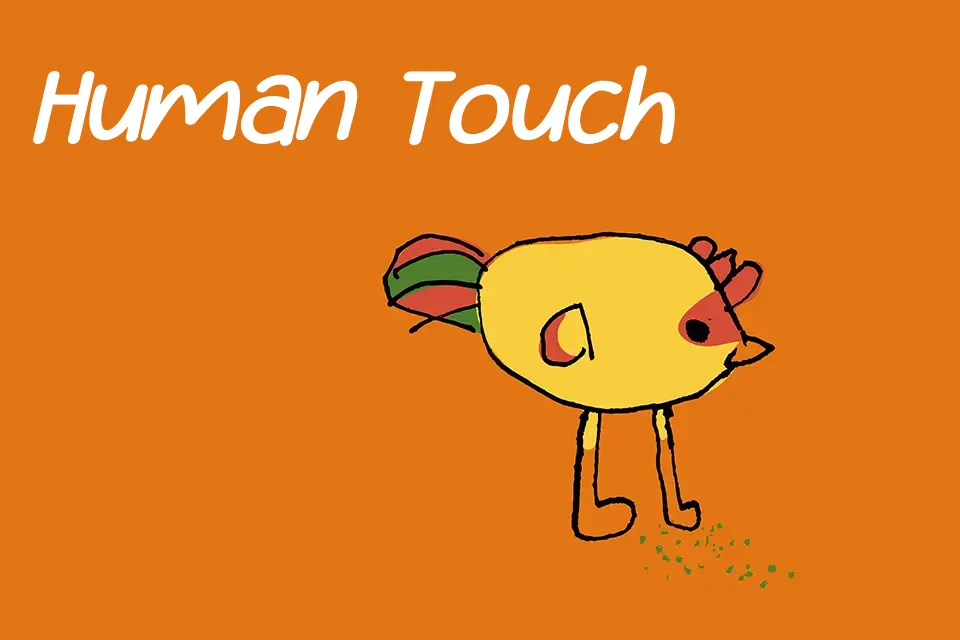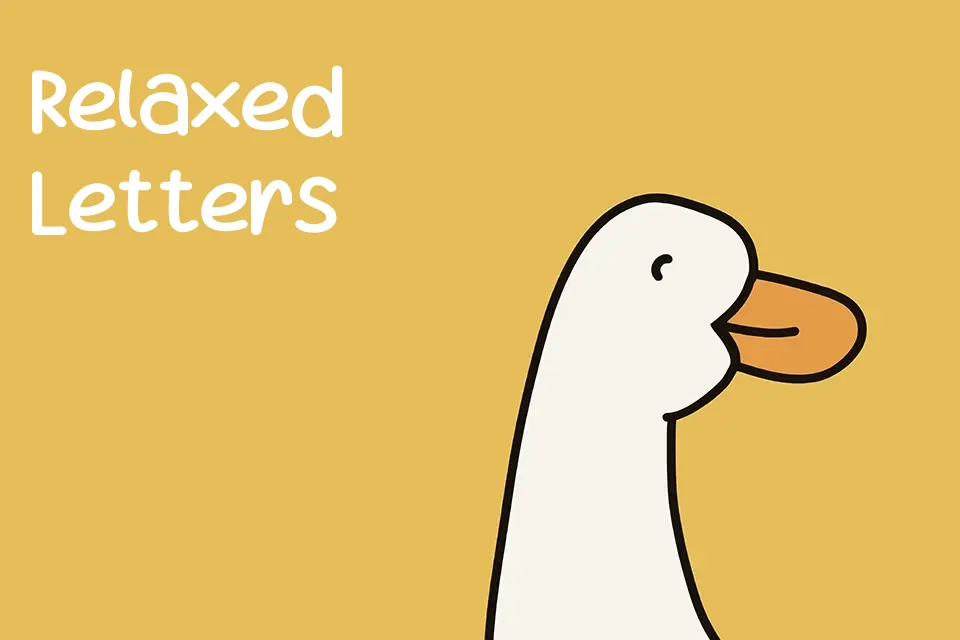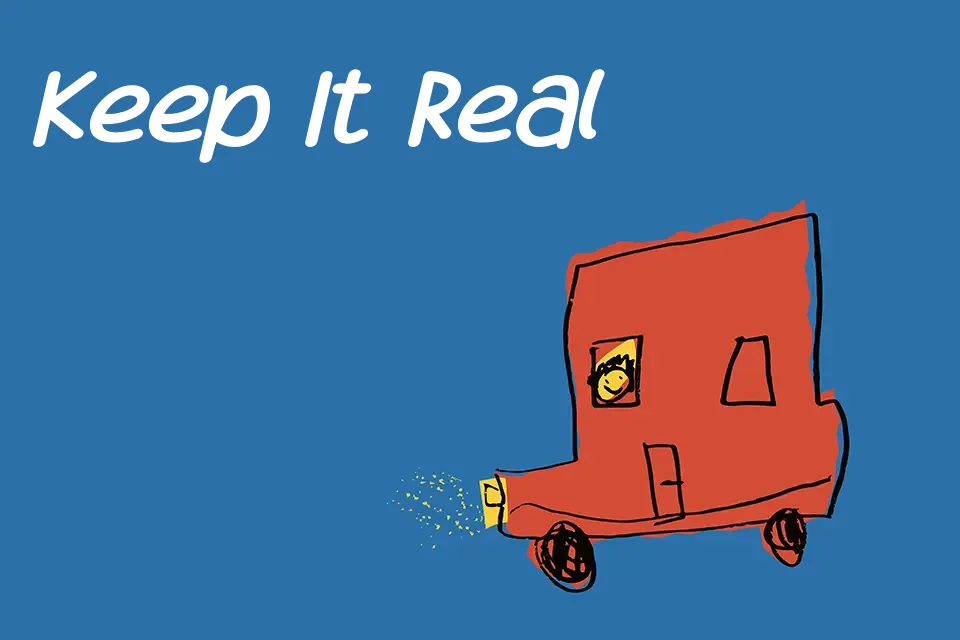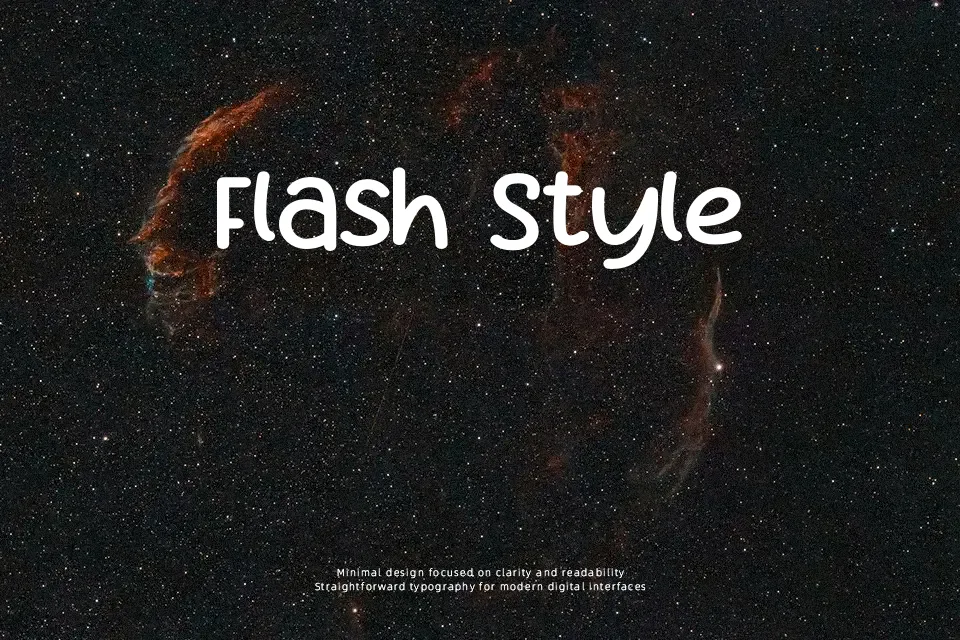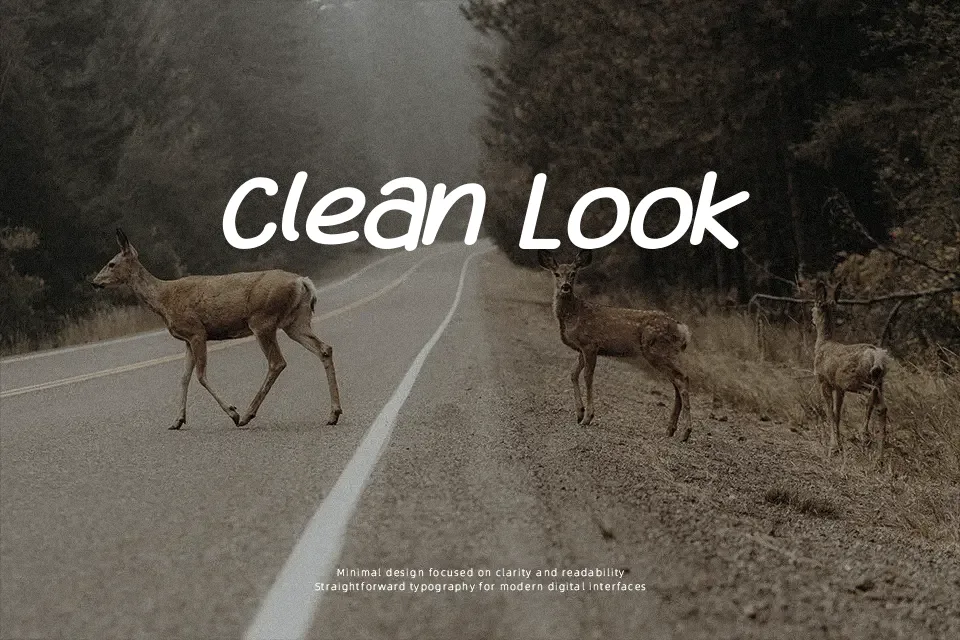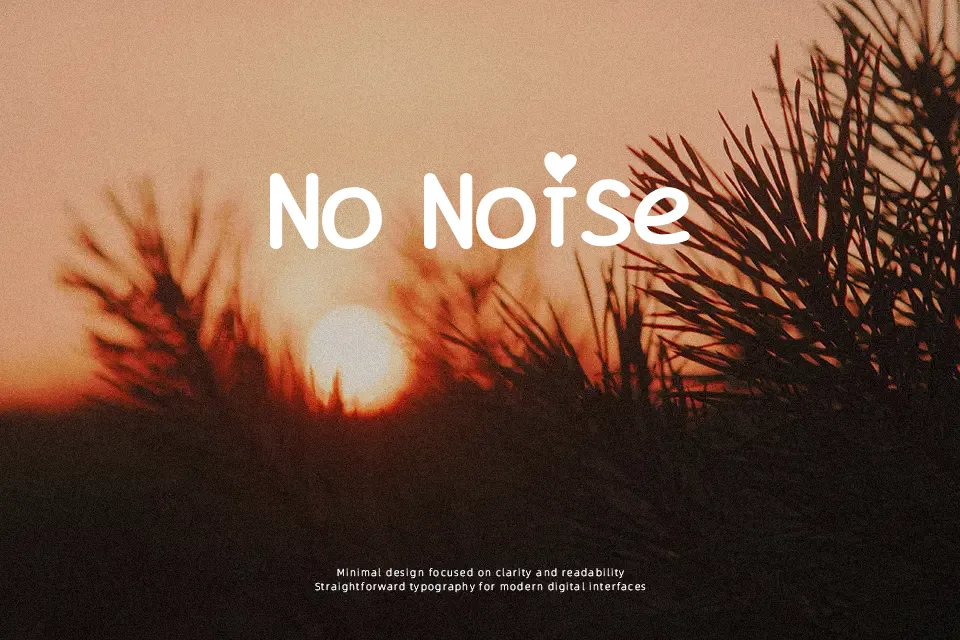
Rain Kiss Font
Rain Kiss Font offers a highly energetic approach to informal typography through its bouncy baselines and organic, marker-like strokes. The letterforms feature a bold, slightly condensed structure with soft, rounded terminals that create a welcoming and approachable rhythm. Consistent stroke thickness ensures strong visibility in larger headlines and poster designs. The open spacing helps maintain clarity when applied to vibrant packaging or casual branding materials. While it performs exceptionally well in display contexts, the playful irregularity and dense forms reduce comfort during extended reading, making it less suitable for long paragraphs. This typeface performs best when displayed at larger sizes where its dynamic, handcrafted personality can truly stand out.
children’s book covers
casual snack packaging
vibrant social media quotes
playful merchandise design
Perfect for branding, kids, and packaging, with a creative and cartoon style.